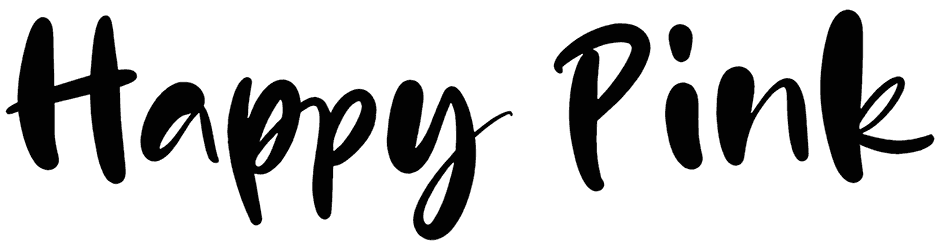
Happy Pink Font
Happy Pink, in all types of designs, can become a hook, determining whether your audience wants to continue reading. This handwritten font has an elegant, attractive, and mysterious look, which, despite making the content difficult to read, can leave a good impression and interest the audience in paying attention to your designs.
So, if you want to attract the reader and impact their personal feelings, use this script font as the main ingredient of your titles, books, packaging, and invitation cards.